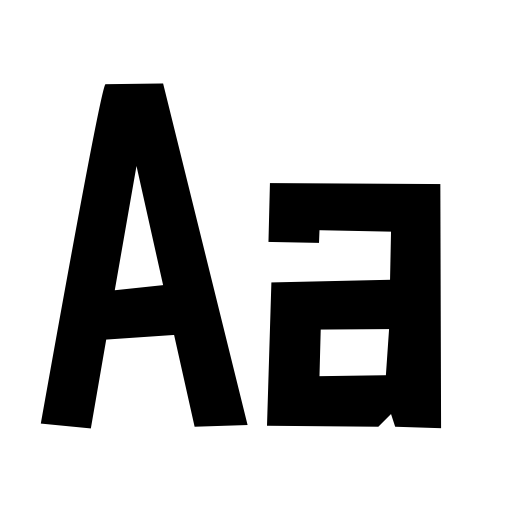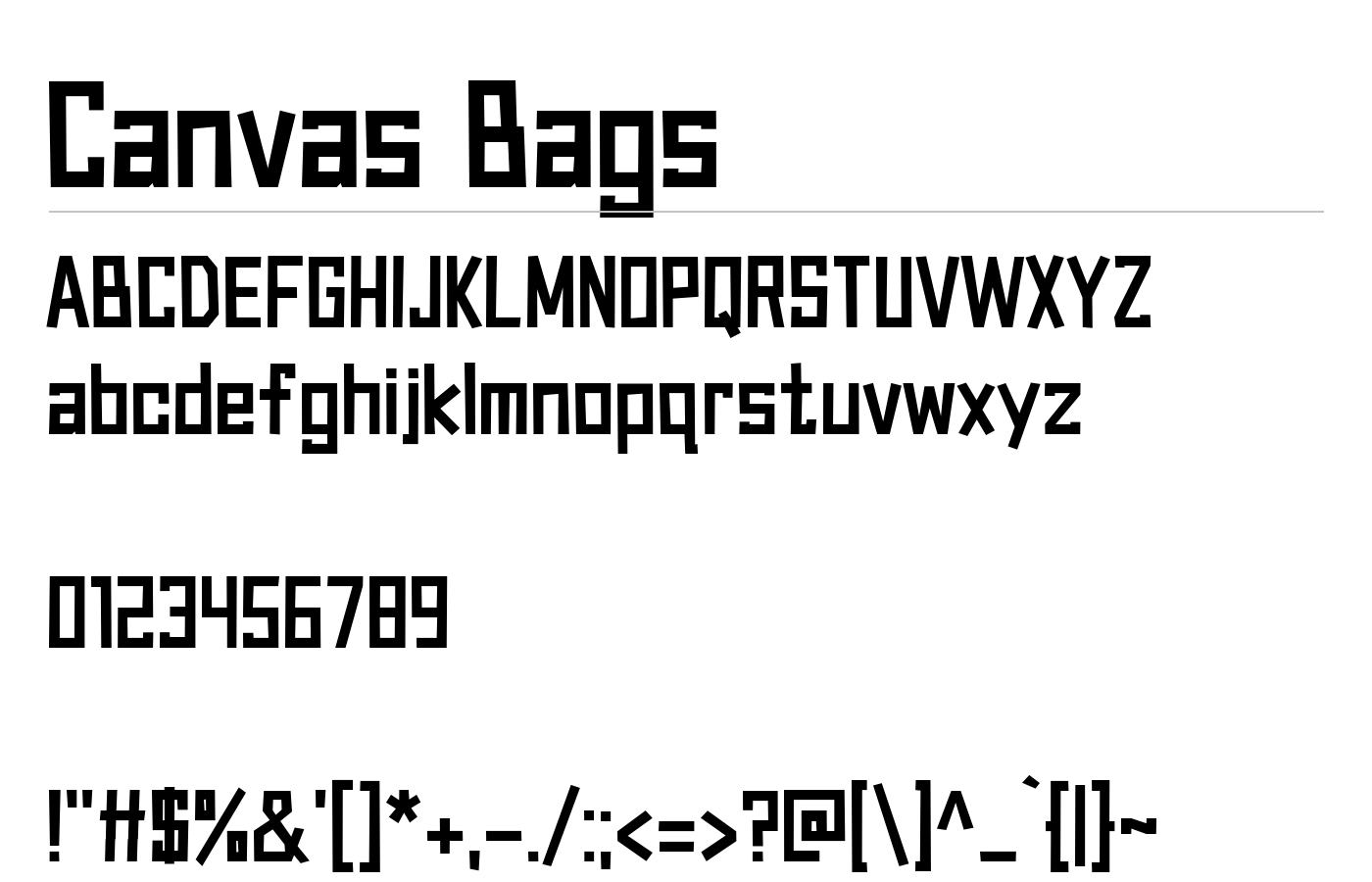
Canvas Bags Font is a bold, condensed sans serif with a strong, geometric structure and a slightly rugged, handcrafted feel. Its sharp edges and uniform stroke weight create a modern yet industrial vibe, making it ideal for brands seeking a confident, no-nonsense look. This font works especially well in advertising, packaging, and headlines where impact and readability are key.
Canvas Bags Font
About Canvas Bags Font